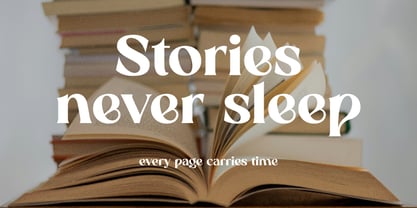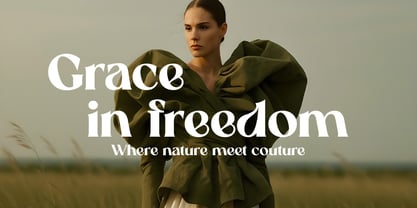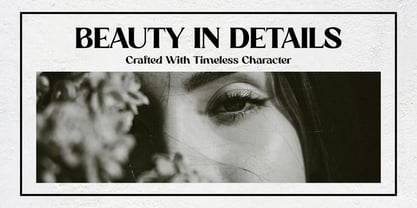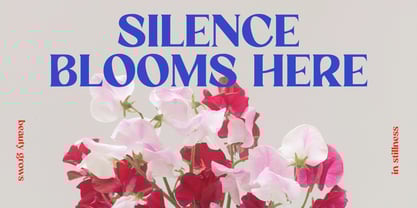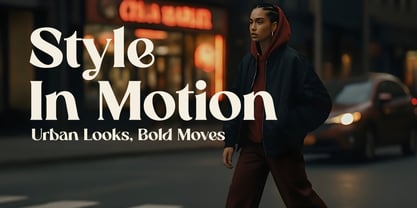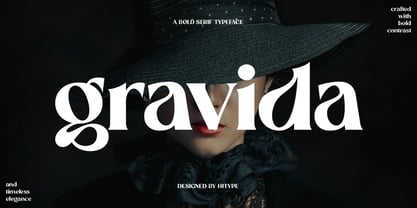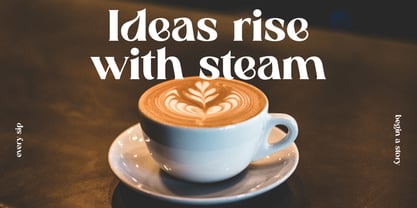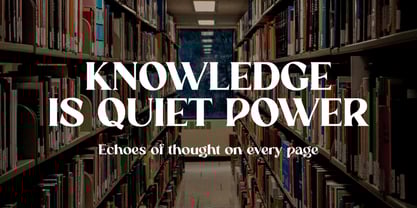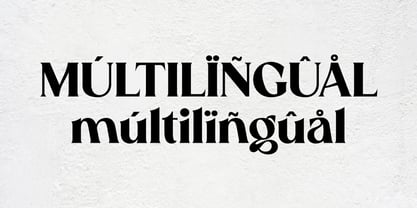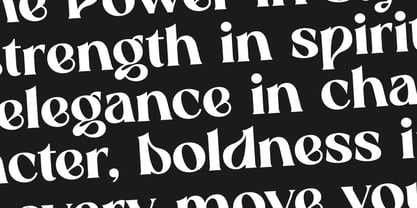
Gravida
by Hitype
The Gravida Font Family was designed by Hernando Marlay and published by Hitype. Gravida contains 1 styles.
Gravida is a bold serif display typeface with high contrast strokes and elegant curves. Perfect for editorial design, fashion branding, posters, logos, and any project that needs timeless sophistication. With its confident presence and timeless charm, Gravida is designed to elevate both print and digital works with striking elegance.
Features: Uppercase & lowercase letters - Numbers & punctuation - Multilingual support - Open Type - High contrast strokes with elegant curves - Perfect for editorial & display use